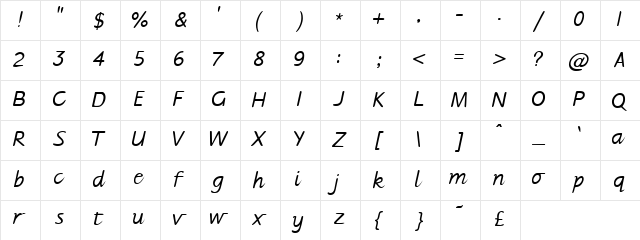
Jarman Regular Font Preview
Jarman Regular
Jarman Regular Font Details
Design Context for Jarman Typeface
Jarman is a composed and adaptable typeface that performs quietly and consistently across a wide range of design contexts.